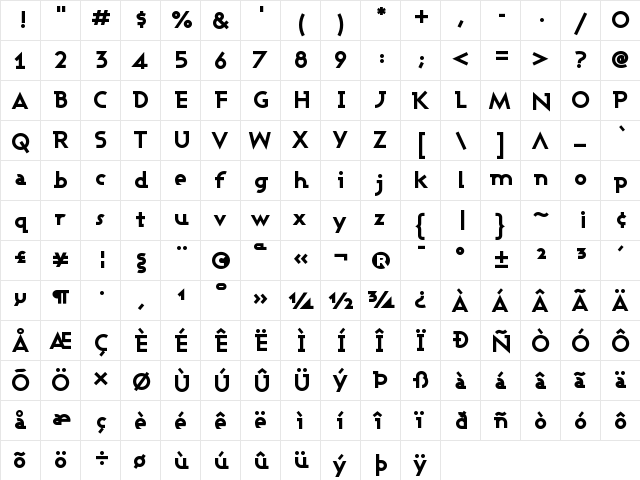
Ashby Extra Bold Regular
Design Context for Ashby Extra Bold Typeface
Ashby Extra Bold offers clean, dependable letterforms without strong stylistic allegiance, making it a practical choice for designers who need flexibility. Its bold stroke weight gives it real presence on the page.
Pro Tip: Use Ashby Extra Bold in both headline and body roles to test its range before committing to a single application.